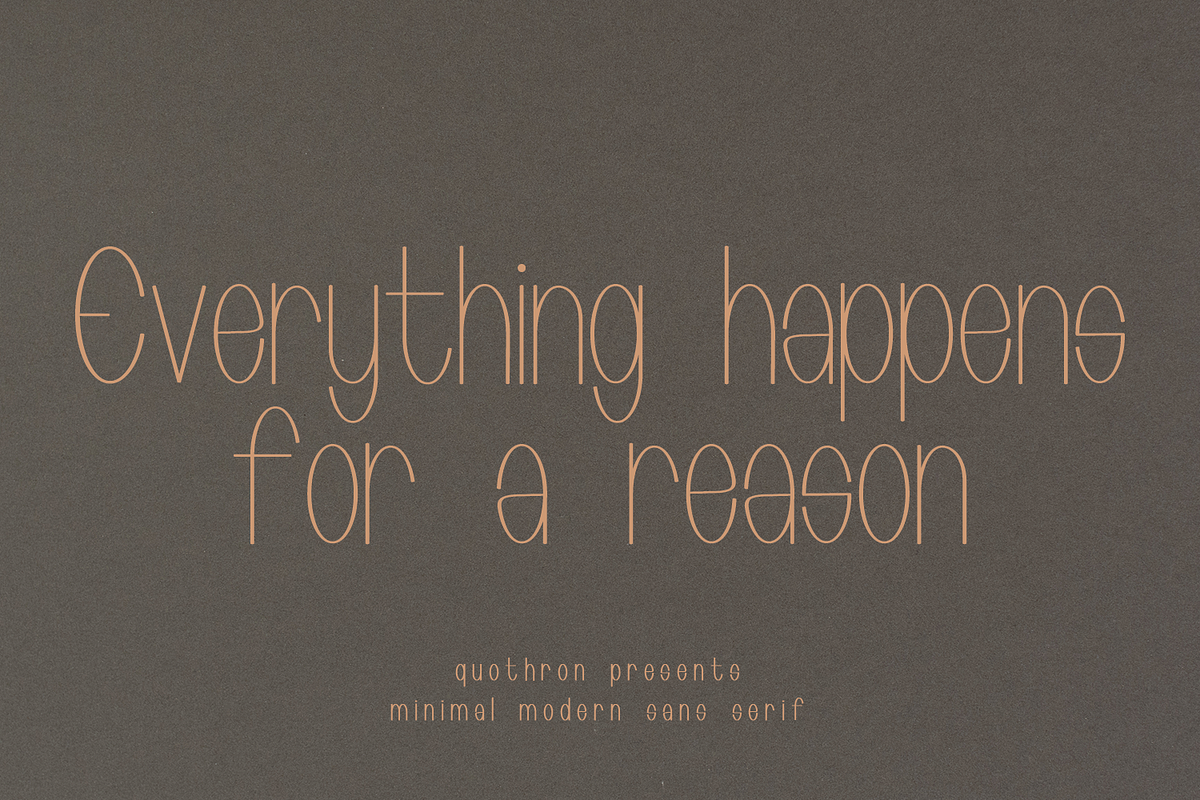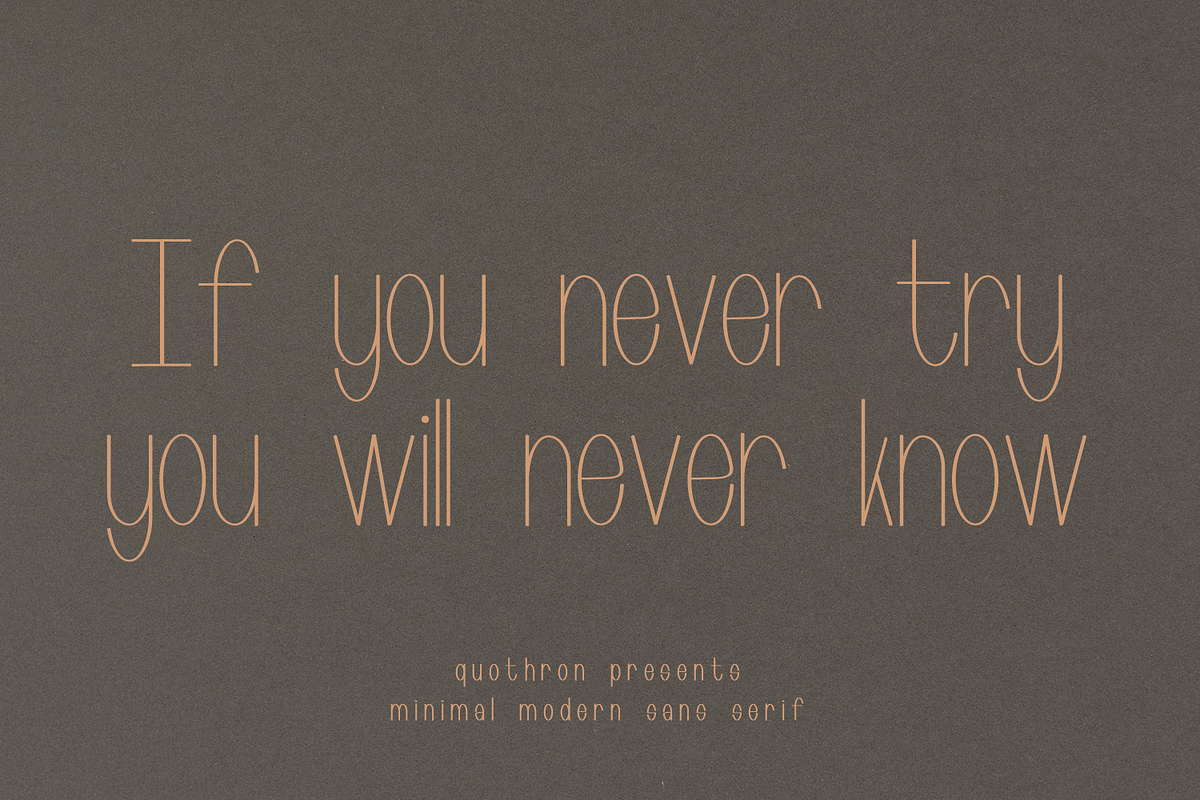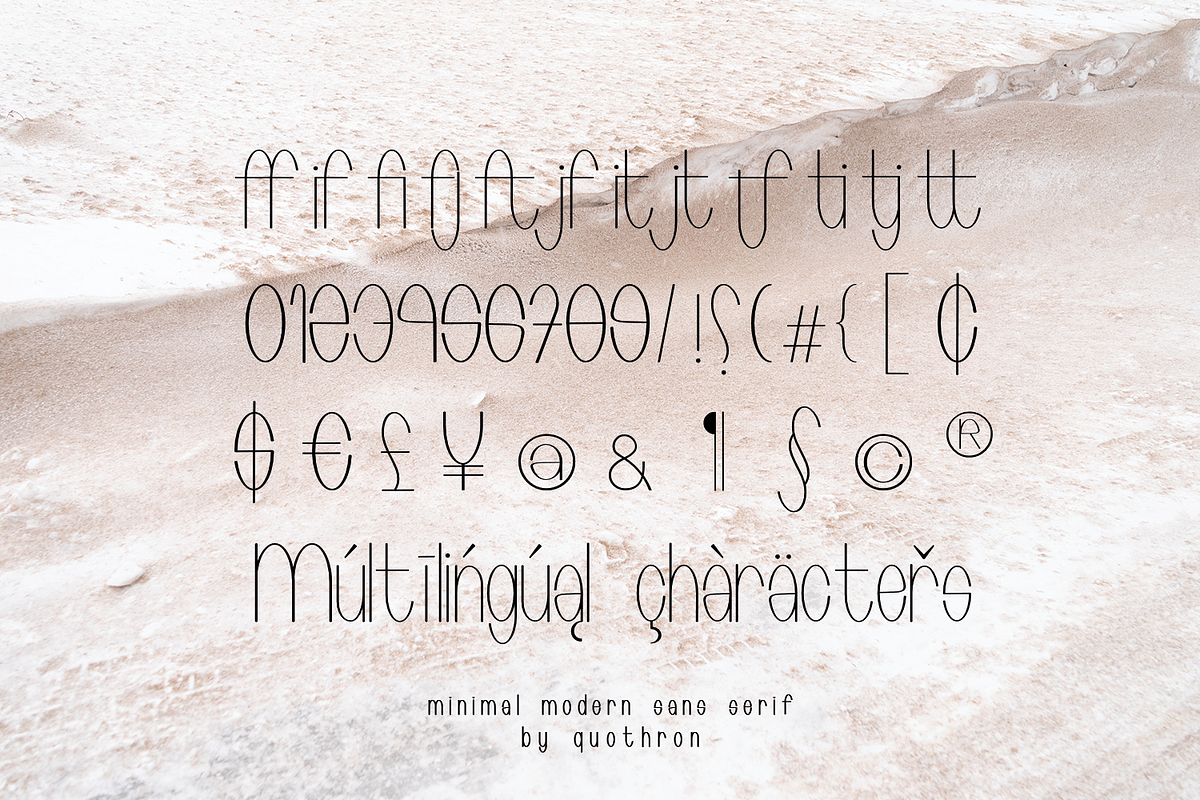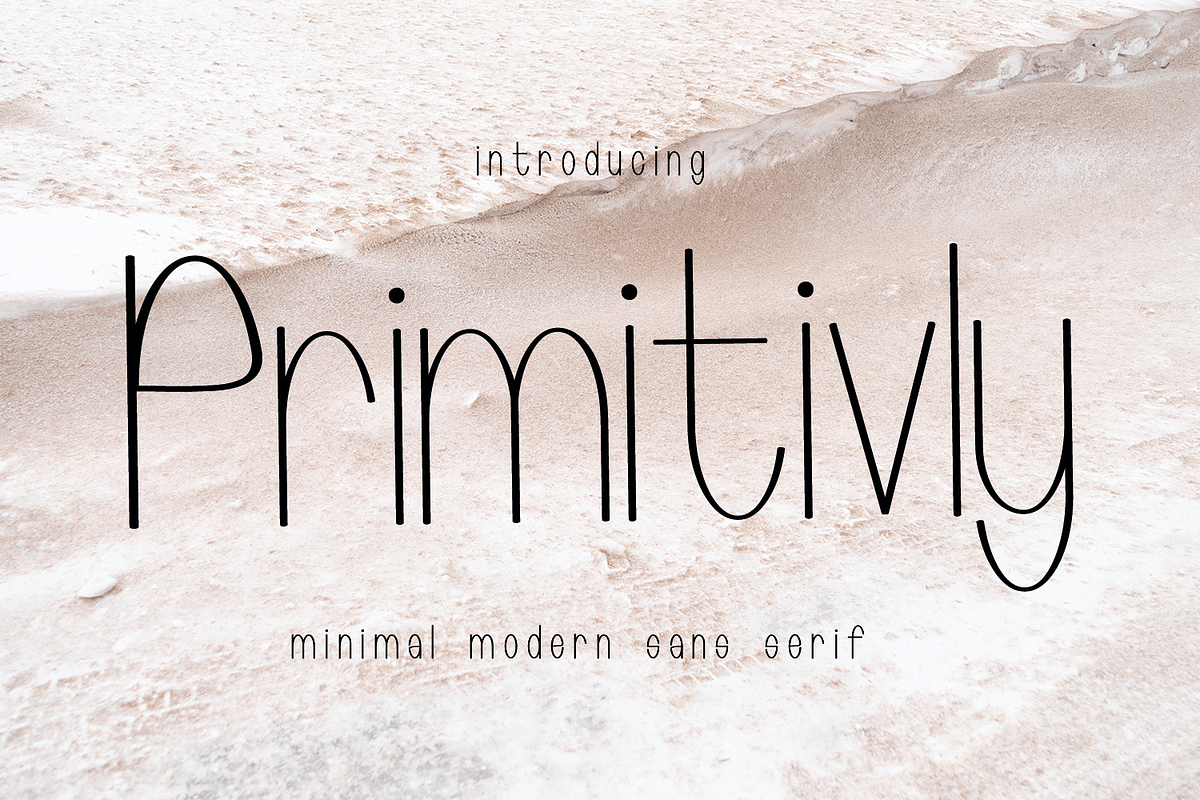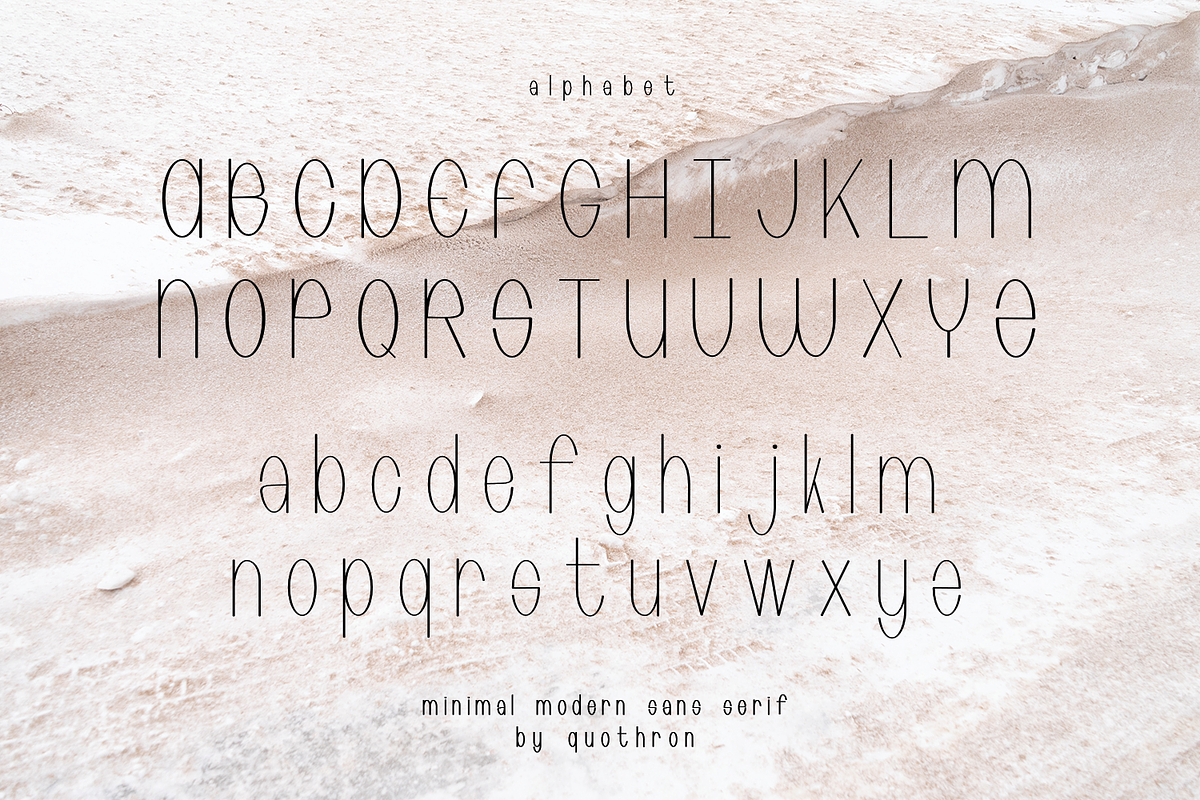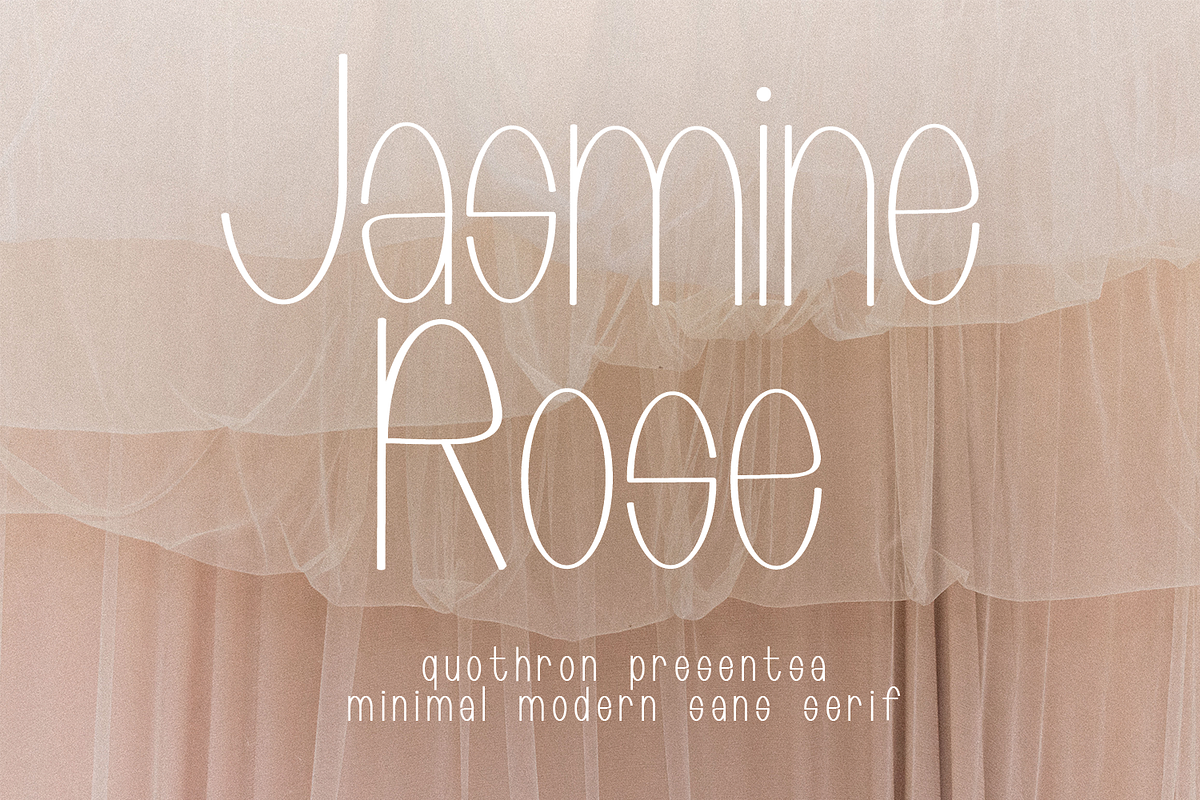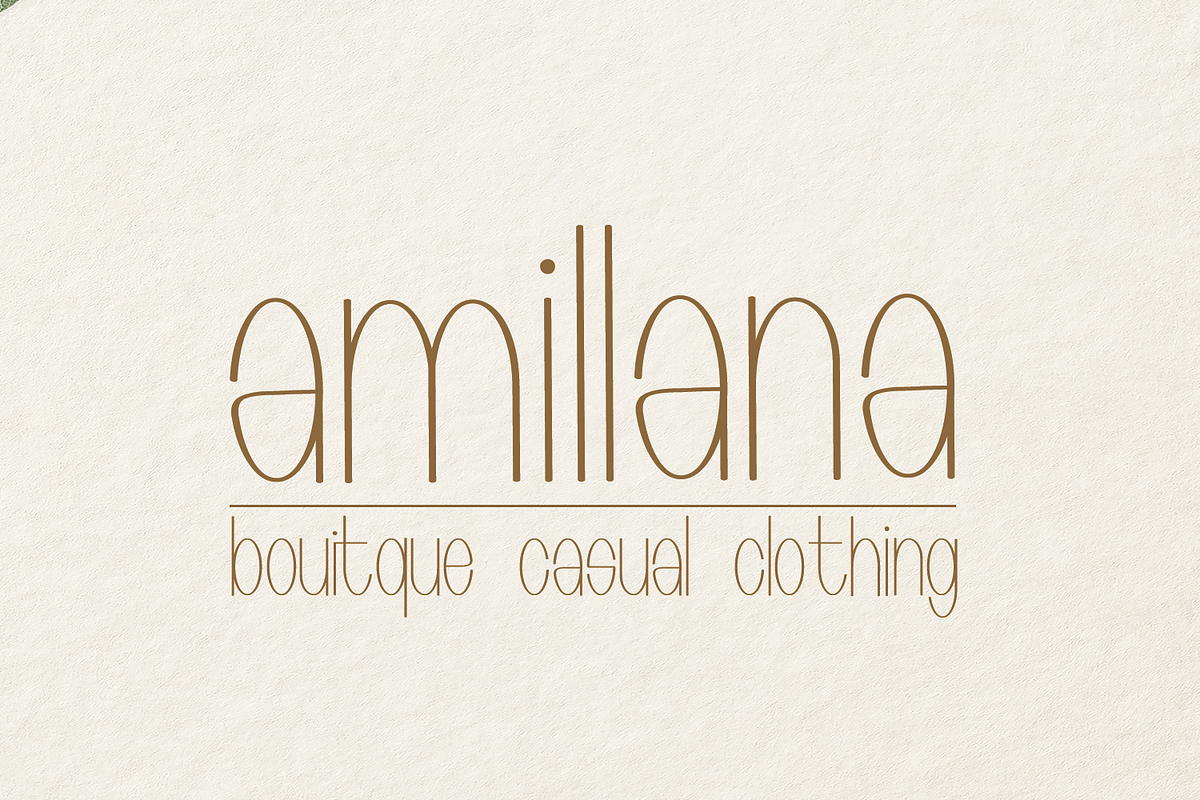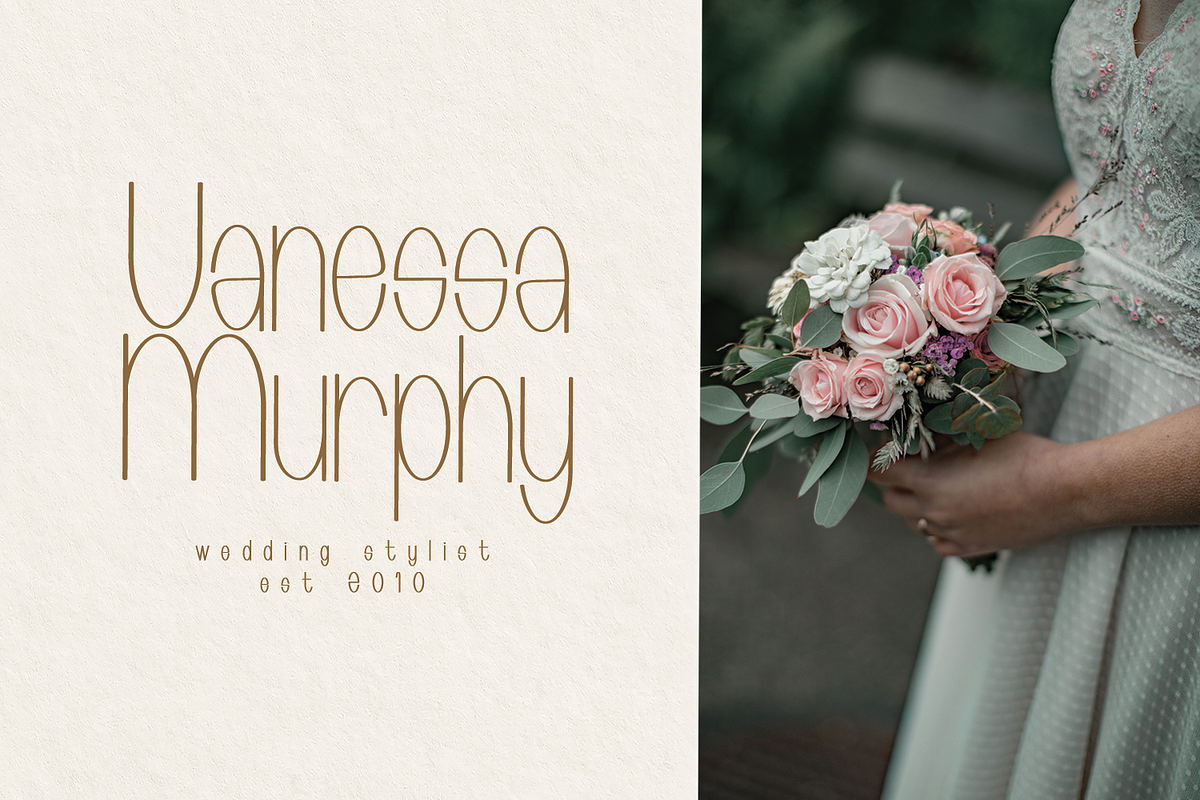
Primitivly Minimal Modern Sans Serif
Primitivly - a new fresh handmade sans serif font.
Very suitable for greeting cards, branding materials, business cards, quotes, posters, and more!This font are perfect for wedding postcard. Or you can create perfect and unique design of your logo, blog, stationery, marketing, magazines and more :)
Ligatures ,Multilingual characters (AÀÁÂÃÄÅCÇDÐEÈÉÊËIÌÍÎÏNÑOØÒÓÔÕÖUÙÜÚÛWYÝŸŸ ÆŒßÞàáâãäåæçèéêëìíîïðñòóôõöøùúûüýÿ)